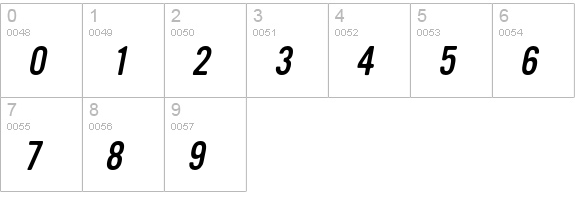
VinylOblique Font Details
Introducing VinylOblique, a stunningly creative and versatile font that will captivate your imagination and elevate your designs to new heights. With its unique and unconventional design, VinylOblique pushes the boundaries of traditional typography, adding a touch of edginess and sophistication to any project. Crafted with meticulous attention to detail, this font boasts elegant slanted letterforms that exude a sense of dynamism and movement. Its sleek and modern aesthetic is perfectly suited for a wide range of creative endeavors, from branding and packaging to editorial layouts and social media graphics. VinylOblique is not only visually striking but also incredibly versatile. Whether you're aiming for a contemporary and urban look or a retro-inspired vibe, this font has got you covered. Its distinctive style effortlessly blends with various design themes, making it a go-to choice for designers seeking to make a bold statement. In addition to its aesthetic appeal, VinylOblique also offers practicality and convenience. It comes in a wide range of weights and styles, allowing you to mix and match to achieve the perfect balance for your project. From light and airy to bold and impactful, the possibilities are endless with VinylOblique. And the best part? VinylOblique is free! Yes, you read that right. This extraordinary font is freely available to download at FontsMarket.com, offering you the opportunity to enhance your designs without breaking the bank. So why wait? Unleash your creativity and embark on a typographic journey like no other with VinylOblique. Download it now and let your designs shine with its captivating charm.